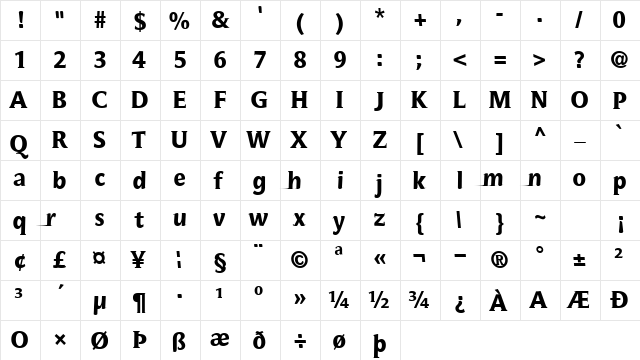
SpotlightRomat Regular
Design Context for SpotlightRomat Typeface
SpotlightRomat takes a measured approach to typography — its balanced proportions and neutral character make it a reliable workhorse for both digital and print work. Its slender proportions lend an understated elegance to any composition.